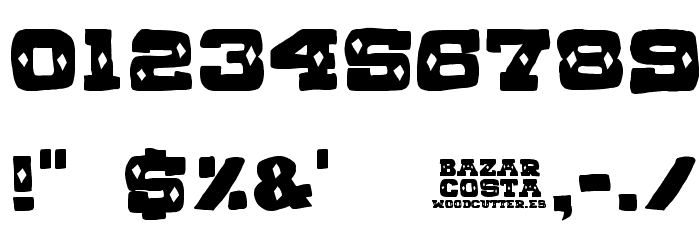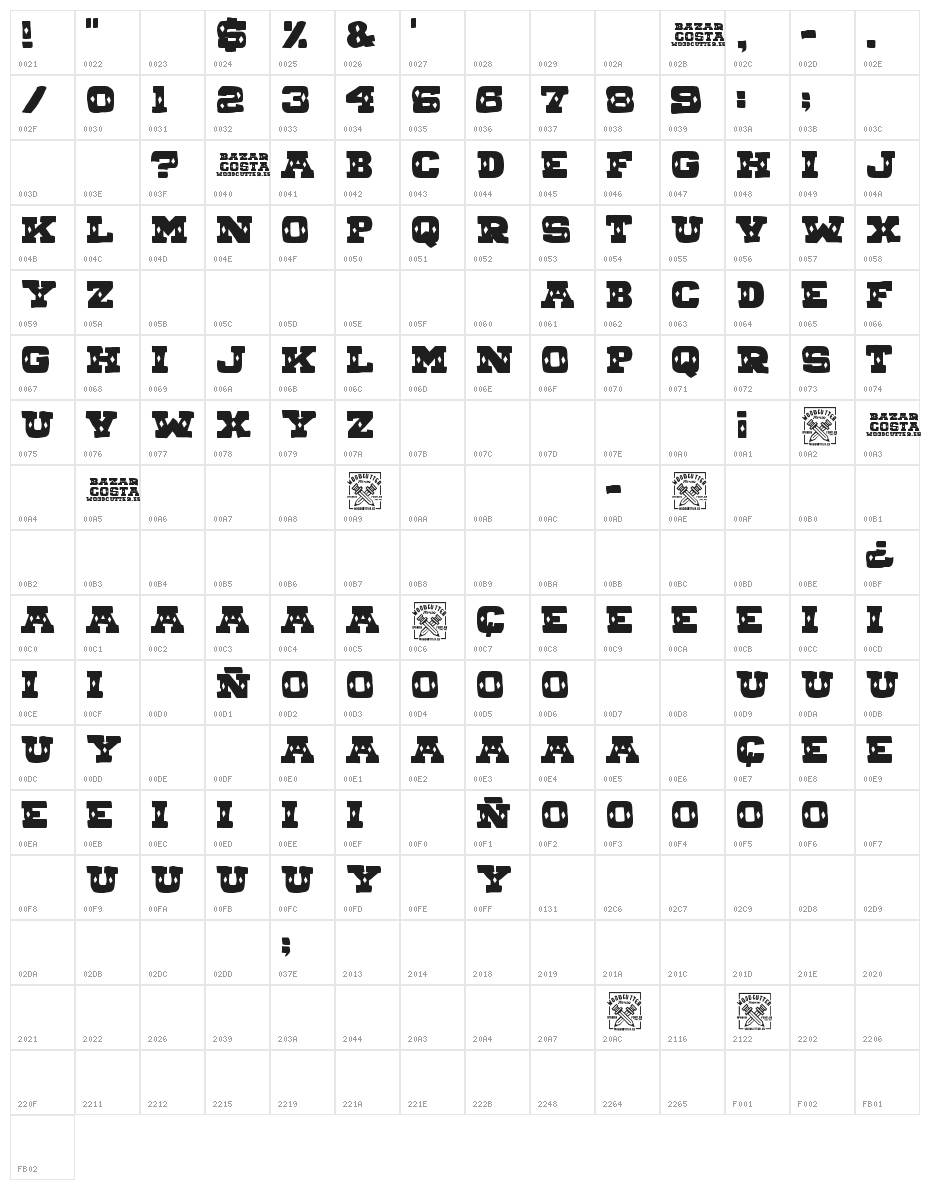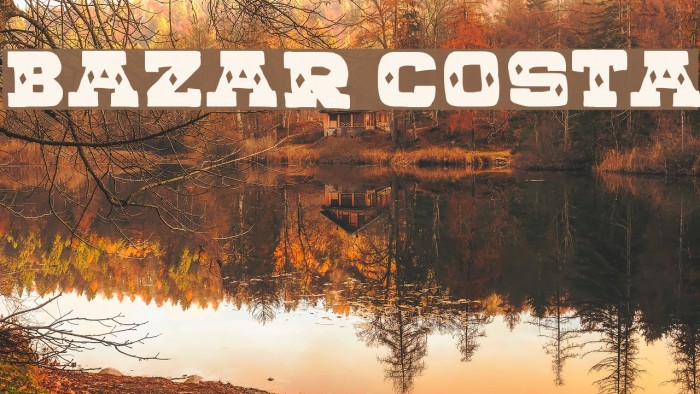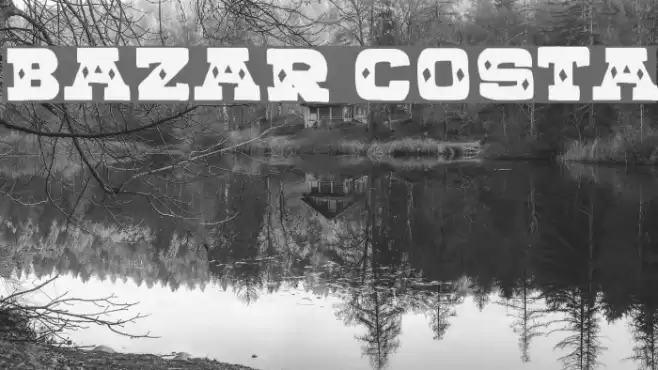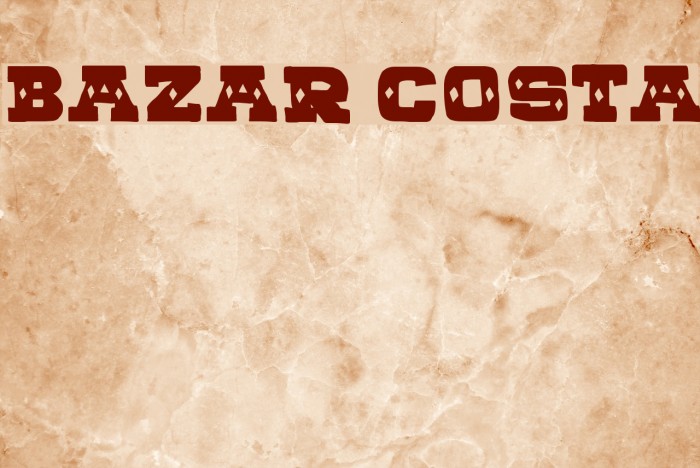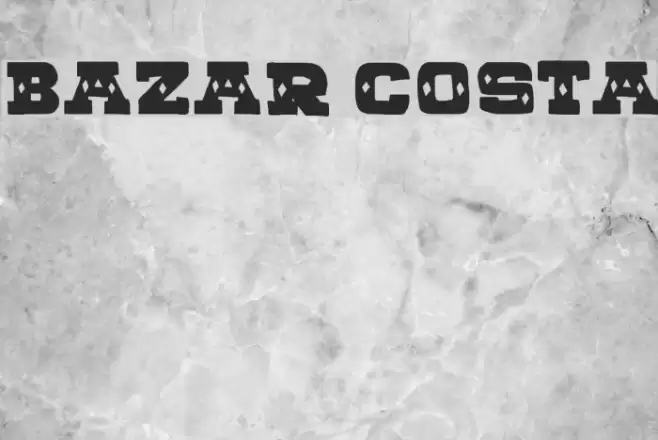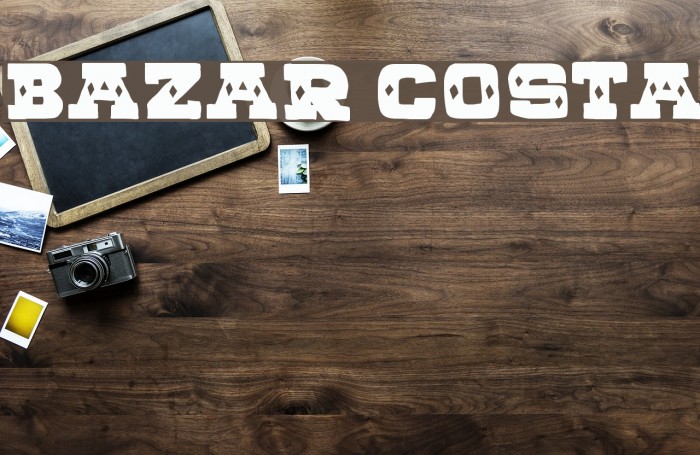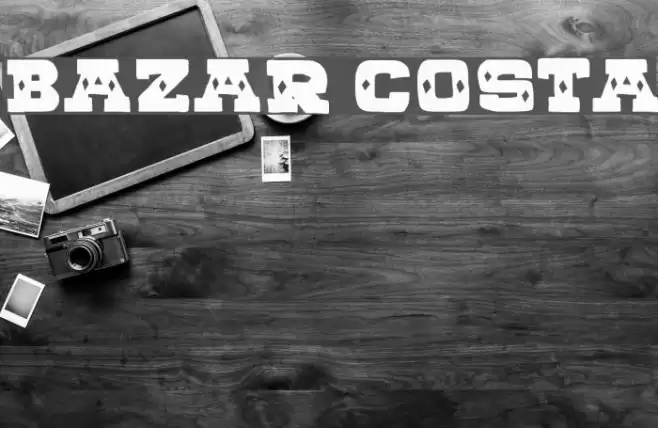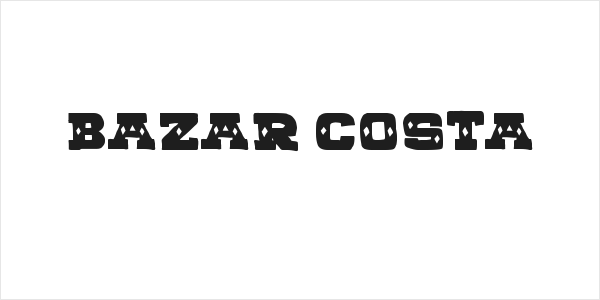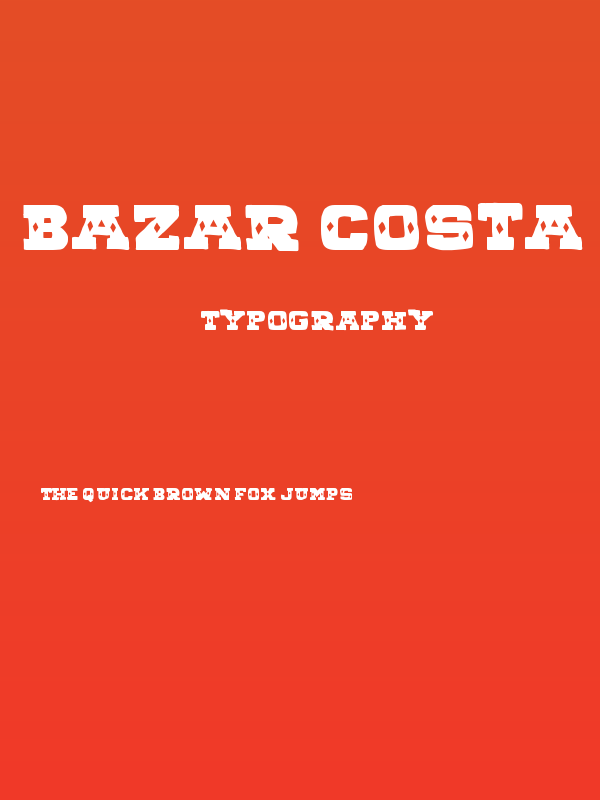
BAZAR COSTA Font
BAZAR COSTA Description
This font features a bold and robust design with thick, block-like characters that convey a sense of strength and stability. The letters are uniformly wide, with a slight decorative flair that adds a touch of uniqueness to each character. The numbers and special characters maintain the same boldness, ensuring consistency across all elements. The overall appearance is reminiscent of vintage signage or posters, making it ideal for projects that require a strong visual impact.
Overall StyleVintage
Proposed ProjectsIdeal for posters, signage, branding, and any project needing a strong, vintage aesthetic.